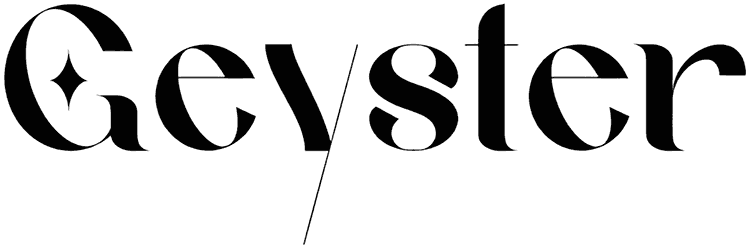
Geyster Font
We believe that a marvelous serif font, the same as the Geyster, would really deserve to be on your radar in the realm of designing eye-grabbing business cards, branding projects, illustrations, product packaging, or stickers.
Geyster Font By Lettertype Studio